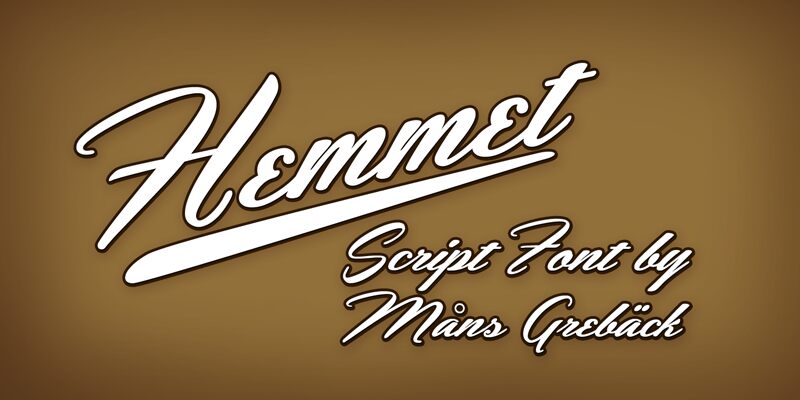
Hemmet by Måns Grebäck is a free calligraphic script with sweeping capitals and sharply changing stroke widths. Its long loops and low, fast-moving joins give the lettering the flourish of an oversized signature.
Fashion and beauty brands will find its dramatic sweep well suited to logos, perfume packaging, and campaign graphics. It also suits formal event invitations. The extended strokes can echo ribbon, fabric, or fine-line illustration, letting the words become part of the decorative image.